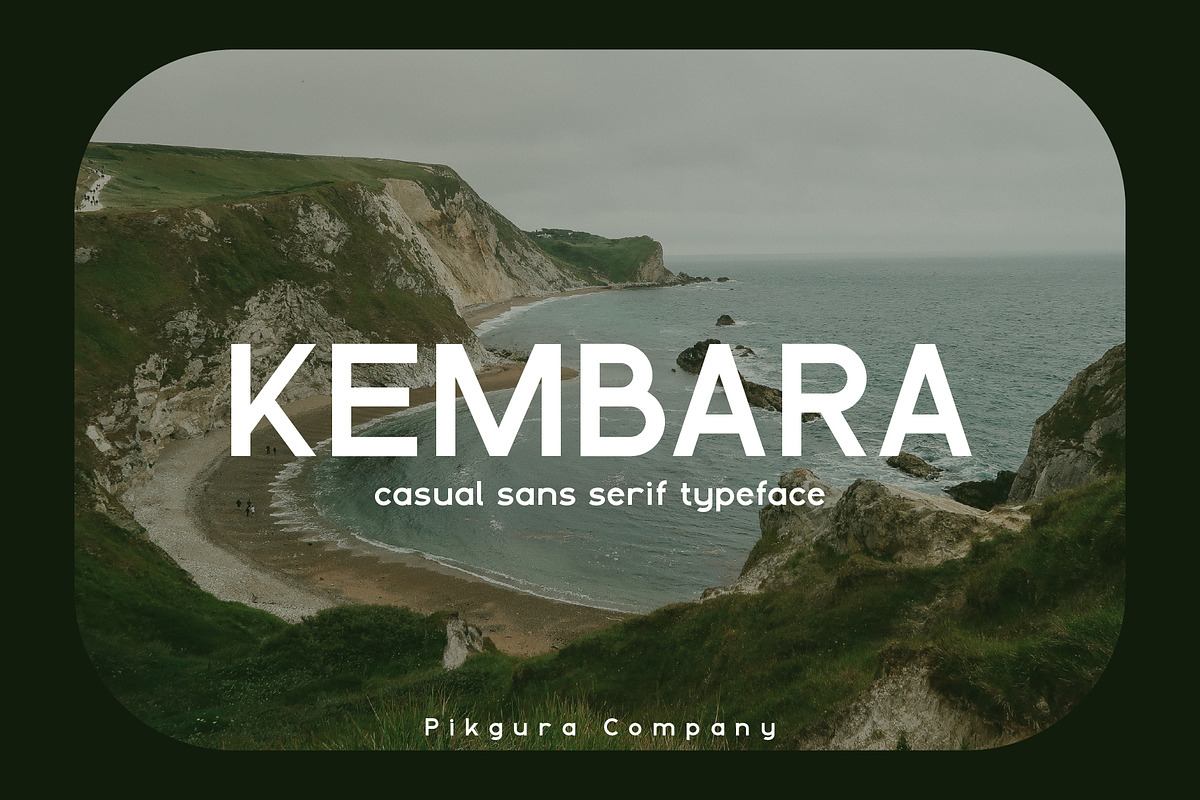
Kembara Font Free Download is a clean, modern font family designed for versatility and style. With multiple weights and styles included, Kembara is ideal for branding, editorial layouts, professional presentations, packaging design, websites, and minimalist logos.
Its balanced proportions and crisp letterforms make it perfect for both headlines and body text, delivering high readability and a polished look. Whether you're building a brand identity or crafting a design system, the Kembara Font Family gives you the flexibility to stay consistent and creative. Kembara Font Free Download allows you to explore the entire family for personal use before committing to a commercial license.
Design with confidence using Kembara — the font family that’s built for clarity, elegance, and modern expression.